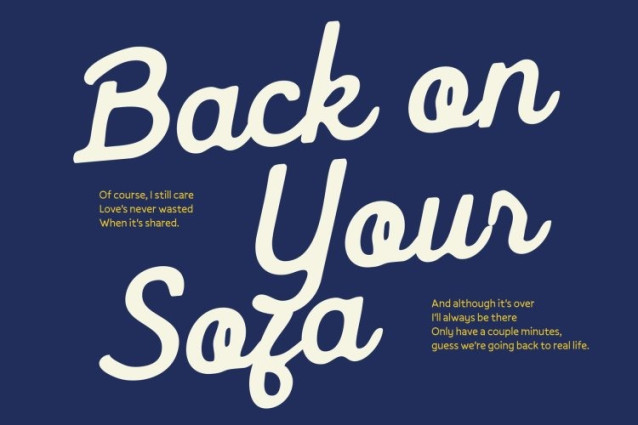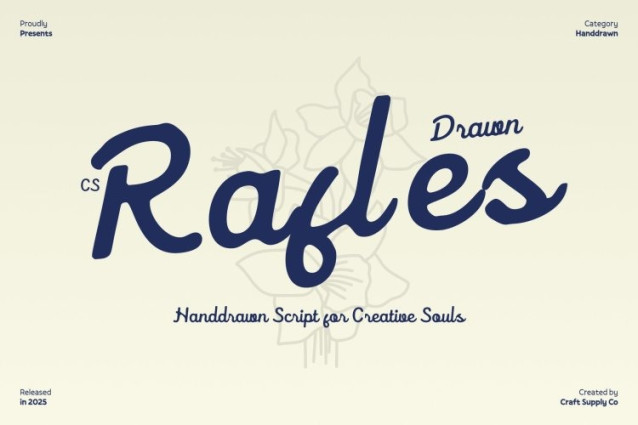
CS Rafles Drawn Font
CS Rafles Drawn Font This is a modern script font that combines smooth, flowing cursive forms with a subtle hand-drawn texture. Each stroke is carefully crafted to evoke elegance and charm, merging the natural beauty of handwriting with a refined contemporary aesthetic. The result is a timeless, polished typeface that feels both sophisticated and approachable.
Feminine Elegance with Premium Appeal
The curves, loops, and swashes of this font are designed with grace and stylistic flair, creating a soft, romantic, and upscale tone. Its feminine, delicate personality makes it ideal for luxury branding, fashion look books, and personalized stationery, adding warmth and refinement to every project.
Versatile for Chic and Elegant Designs
Perfect for wedding invitations, beauty branding, lifestyle editorials, or signature-style headlines, this font combines legibility with decorative elegance. Its flowing rhythm and handcrafted details enhance the visual appeal of any creative layout, bringing personality and sophistication to your designs.
Handcrafted for Expressive Storytelling
This font is more than a font it’s a tool for visual storytelling. Its hand-drawn charm and graceful movement allow designers to convey beauty, emotion, and style. Whether used for branding, editorial work, or heartfelt messages, this script font offers the perfect balance of artistry, readability, and elegance.